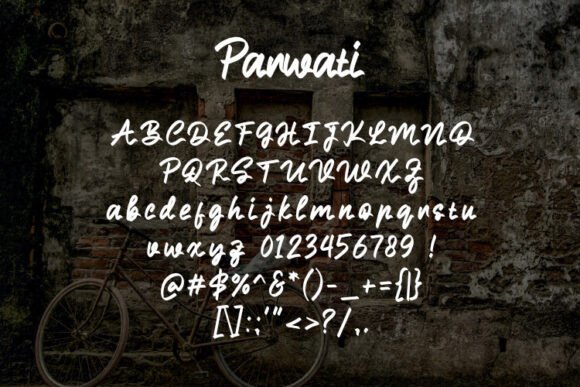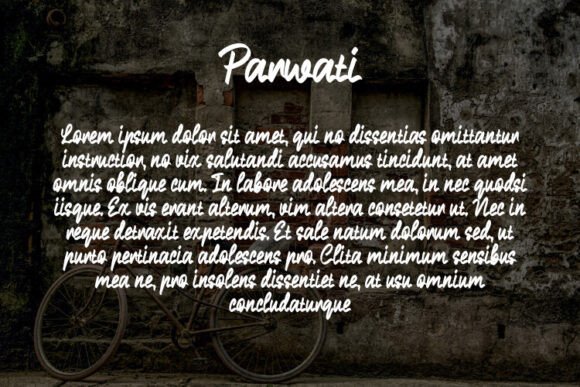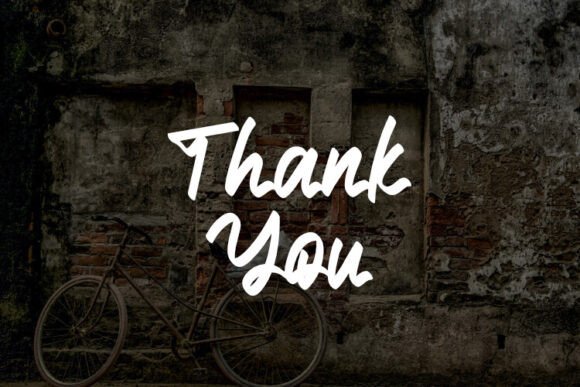
Introduction to Parwati Font
Have you ever been stuck in a design rut, desperately searching for the perfect font to elevate your creative project? That’s exactly where I found myself a few months ago, struggling to find a font that would perfectly match the vibe of my latest design. But then, I stumbled upon the Parwati Font, and everything changed.
This stunning font has been a game-changer for designers like me, offering a high-quality design resource that’s both versatile and adaptable. Whether you’re working on a clothing design, T-shirt art, or any other creative project, the Parwati Font is sure to impress with its sleek and modern aesthetic.
One of the things that sets the Parwati Font apart from other design resources is its ability to seamlessly integrate with any software, making it a valuable addition to any designer’s toolkit. Plus, with a transparent background and a free download option, you can unleash your creativity without breaking the bank.
Key Features of Parwati Font
- Features a unique and elegant design, perfect for use in logos, branding, and other visual identity projects
- Supports a wide range of languages, including Latin, Cyrillic, and Devanagari scripts
- Designed with precision and care, ensuring a smooth and seamless user experience
Honest Review: Parwati Font
- ✨ High-quality design: The Parwati Font is meticulously crafted with attention to detail, resulting in a smooth and elegant aesthetic.
- ✨ Versatility: This font is suitable for a wide range of creative projects, from branding and packaging to digital products and publications.
- ⚠️ Limited language support: The Parwati Font only supports a limited range of languages, which may be a concern for designers working on multilingual projects.
- ⚠️ No transparent background: The font does not support transparent backgrounds, which may limit its use in certain design scenarios.
Overall, the Parwati Font is a great resource for designers who are looking for a high-quality, unique font to add to their design arsenal. While it may have some limitations, its benefits far outweigh its drawbacks, making it a worthwhile addition to any design project.
Tips for Getting the Most Out of Parwati Font
To get the most out of the Parwati Font, use it in combination with other design elements, such as graphics and images. Experiment with different font sizes and colors to create a visually appealing design. You can also use the font in conjunction with a transparent background to create a modern and sleek look.
Common Use Cases for Parwati Font
The Parwati Font is a versatile design resource that can be used for a wide range of creative projects, including logos, brochures, social media graphics, and presentations. Its high-quality design and transparent background make it perfect for use in creative projects that require a professional and modern look.